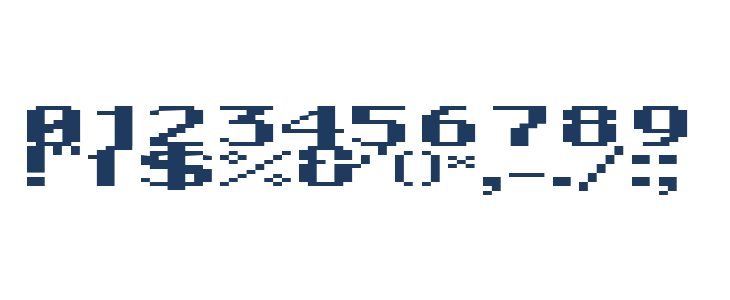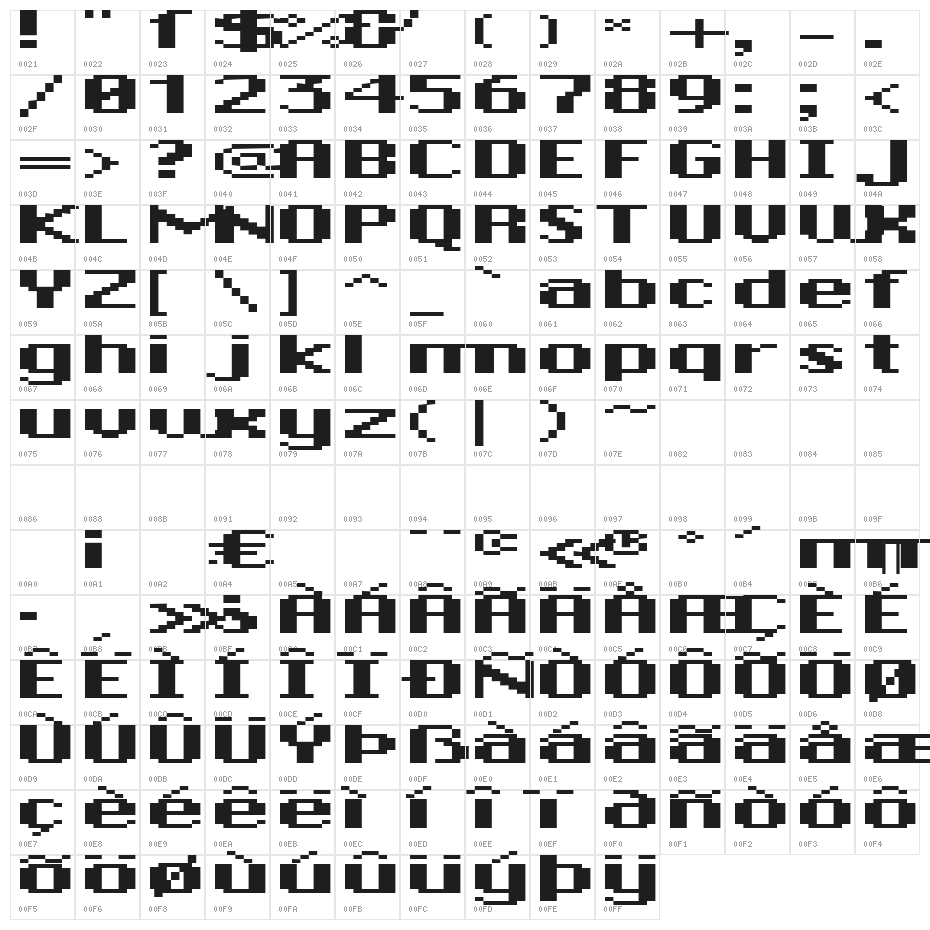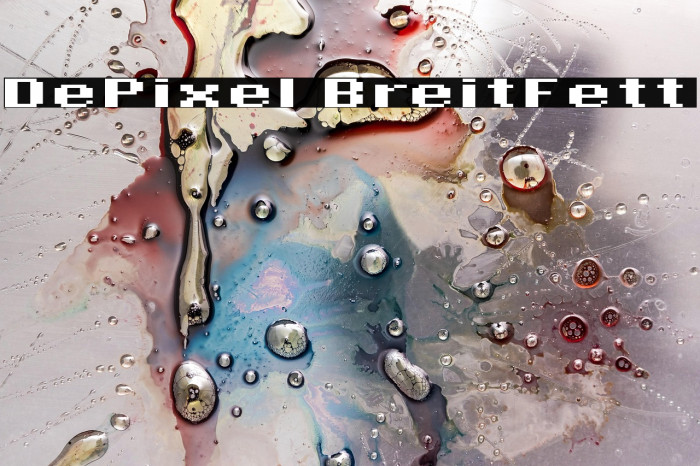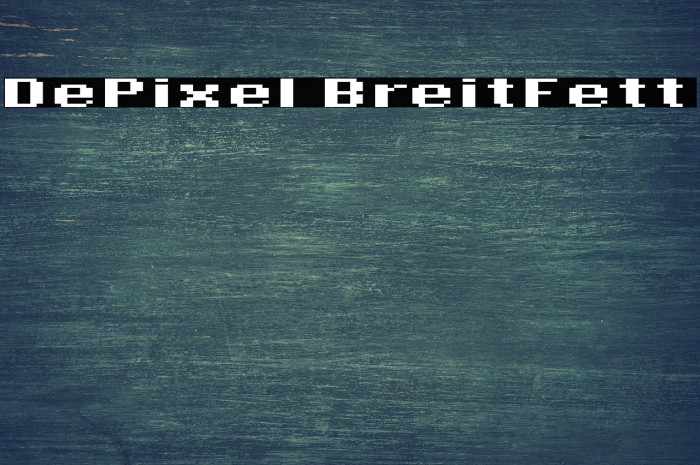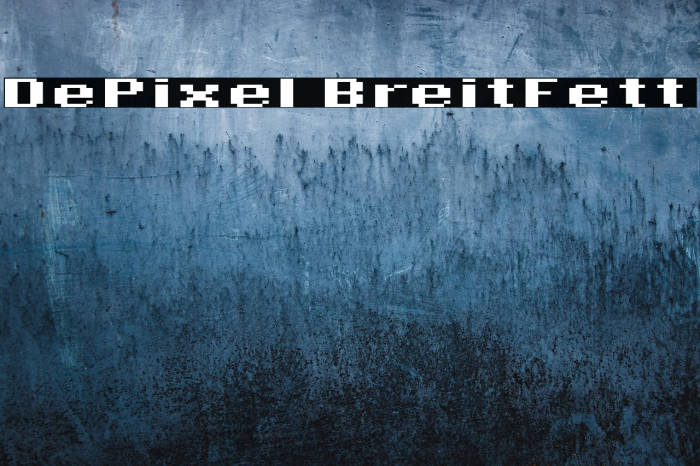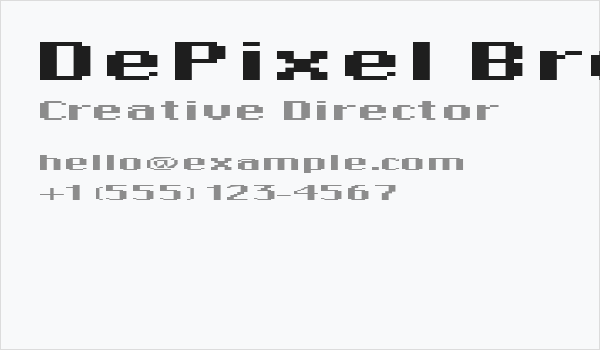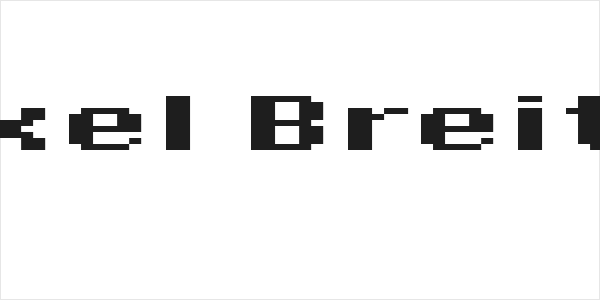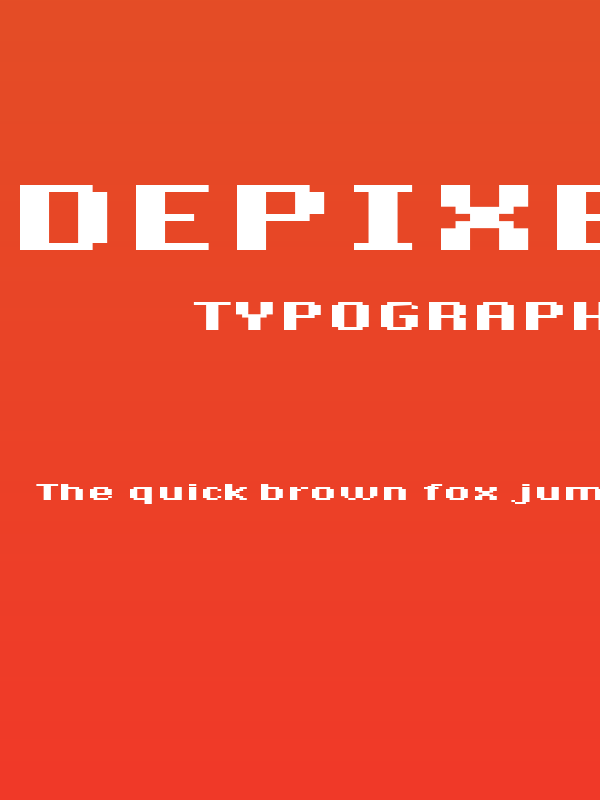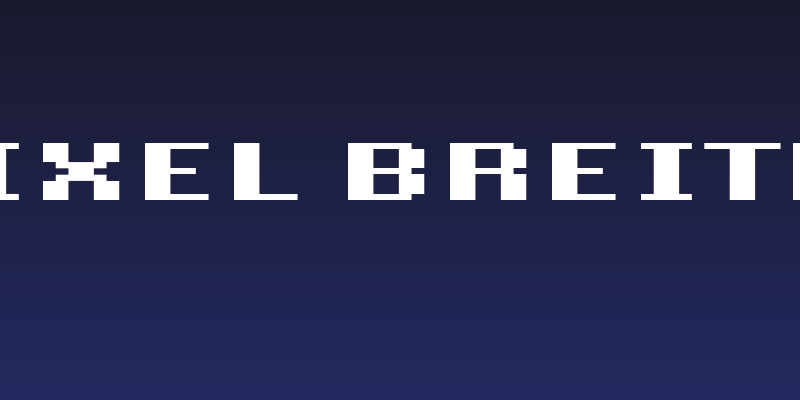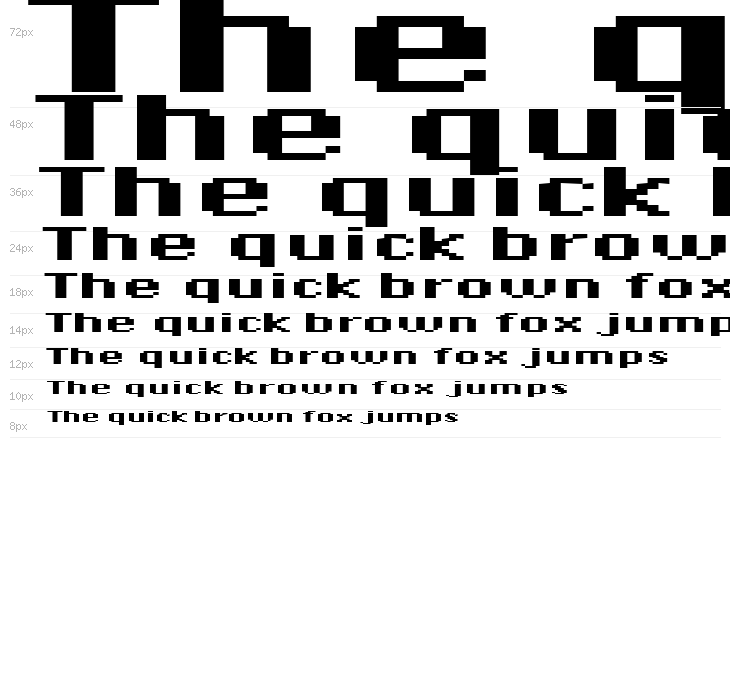
DePixel BreitFett Font
DePixel BreitFett Description
This font features a bold, pixelated style reminiscent of early digital displays and retro video games. Its blocky, geometric shapes create a strong visual impact, making it ideal for designs that require a vintage or tech-inspired aesthetic. The uppercase and lowercase letters maintain a consistent width, contributing to a uniform appearance. Numbers and special characters are designed with the same pixelated approach, ensuring cohesion across all elements. The font's simplicity and clarity make it suitable for both digital and print media, where a nostalgic or playful tone is desired.
Overall StyleVintage
Proposed ProjectsIdeal for video game graphics, retro-themed posters, digital art, and tech-related branding.